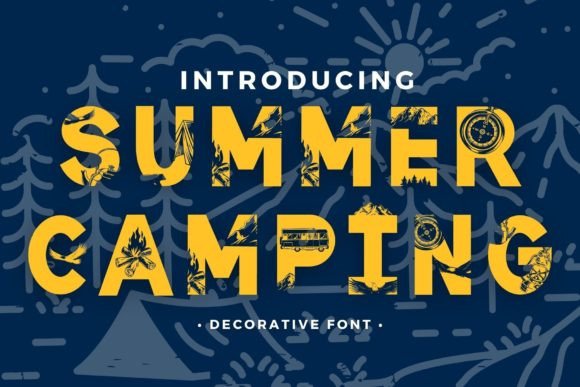
Summer Camping Font: The Perfect Choice for Your Fun and Playful Designs
Are you looking for a font that embodies the spirit of summer and adds a touch of playfulness to your designs? Look no further than the Summer Camping Font! This adorable decorative font is perfect for a wide range of projects, from blog posts and logos to branding, ads, invitations, greeting cards, planners, photo albums, decorations, and more.
What is Summer Camping Font?
Summer Camping Font is a unique and charming decorative font that captures the essence of summer fun. Its playful and authentic design makes it an ideal choice for anyone looking to add a personal touch to their designs. Whether you’re a designer, a DIY enthusiast, or a social media influencer, this font is sure to bring a smile to your audience’s faces.
Characteristics of Summer Camping Font
So, what makes Summer Camping Font so special? Here are some of its key characteristics:
- Playful design: Summer Camping Font features a fun and playful design that’s perfect for summer-themed projects.
- Authentic feel: This font has an authentic feel that makes it perfect for designs that require a personal touch.
- Versatile: Summer Camping Font can be used for a wide range of projects, from digital designs to print materials.
- Easy to read: Despite its playful design, Summer Camping Font is easy to read and understand.
Uses of Summer Camping Font
Summer Camping Font is a versatile font that can be used for a wide range of projects, including:
- Blog posts: Add a touch of summer fun to your blog posts with Summer Camping Font.
- Logos and branding: Use Summer Camping Font to create a unique and memorable logo for your brand.
- Ads and marketing materials: Summer Camping Font is perfect for creating eye-catching ads and marketing materials.
- Invitations and greeting cards: Add a personal touch to your invitations and greeting cards with Summer Camping Font.
- Planners and photo albums: Use Summer Camping Font to create beautiful and functional planners and photo albums.
- Decorations: Summer Camping Font can be used to create fun and playful decorations for parties, events, and more.
Benefits of Using Summer Camping Font
So, why should you use Summer Camping Font for your designs? Here are some of the benefits:
- Adds a personal touch: Summer Camping Font adds a personal touch to your designs, making them more relatable and engaging.
- Increases engagement: The playful design of Summer Camping Font can help increase engagement and interaction with your audience.
- Perfect for summer-themed designs: Summer Camping Font is perfect for summer-themed designs, making it a great choice for seasonal projects.
Tips for Using Summer Camping Font
Here are some tips for using Summer Camping Font:
- Use it for headings and titles: Summer Camping Font is perfect for headings and titles, adding a touch of playfulness to your designs.
- Mix it with other fonts: Experiment with mixing Summer Camping Font with other fonts to create a unique and interesting design.
- Use it for digital and print designs: Summer Camping Font can be used for both digital and print designs, making it a versatile choice.
- Experiment with colors and textures: Add an extra layer of interest to your designs by experimenting with different colors and textures.
Summer Camping Font is a unique and charming decorative font that’s perfect for adding a touch of summer fun to your designs. Its playful and authentic design makes it an ideal choice for a wide range of projects, from blog posts and logos to branding, ads, invitations, greeting cards, planners, photo albums, decorations, and more. With its versatility, ease of use, and playful design, Summer Camping Font is sure to become a favorite in your design arsenal.
- What is Summer Camping Font? Summer Camping Font is a decorative font that embodies the spirit of summer and adds a touch of playfulness to your designs.
- Can I mix Summer Camping Font with other fonts? Yes, you can mix Summer Camping Font with other fonts to create a unique and interesting design.